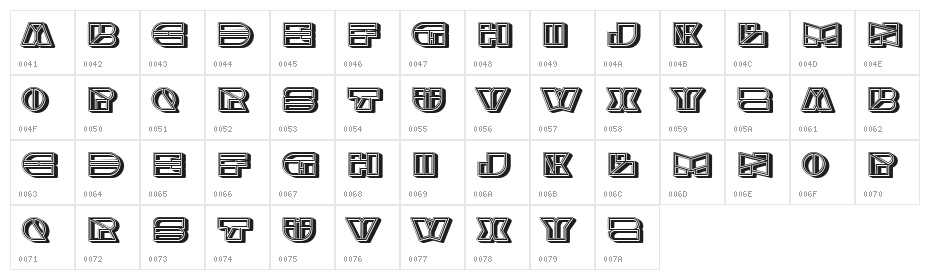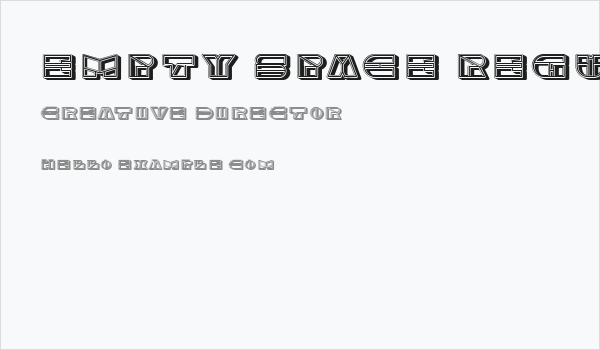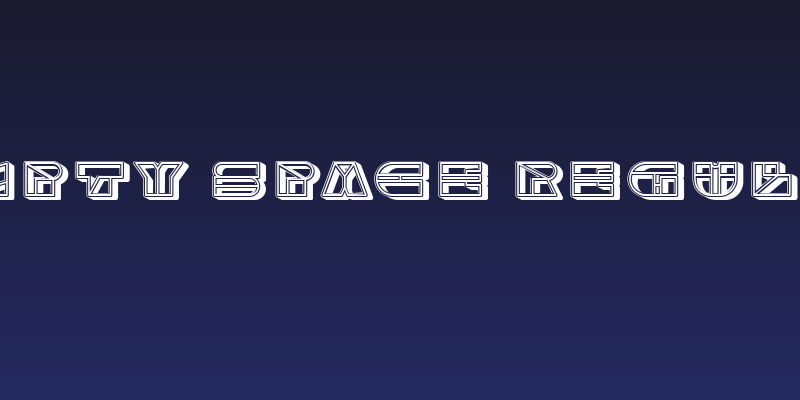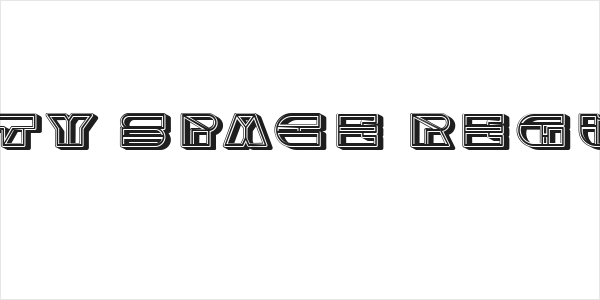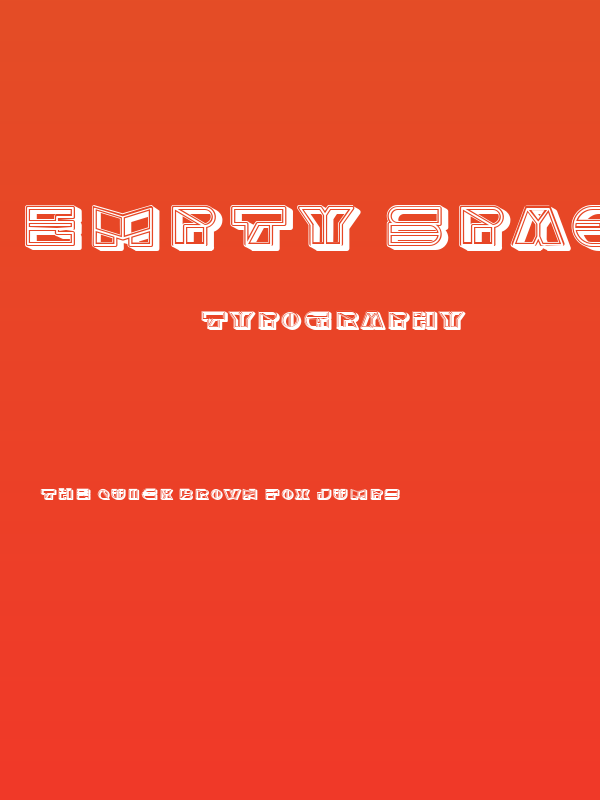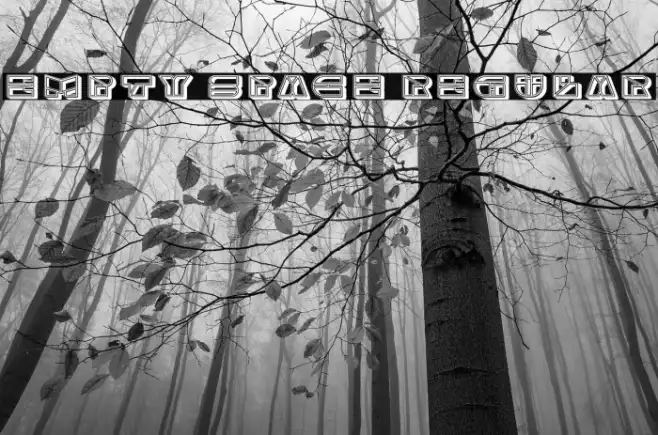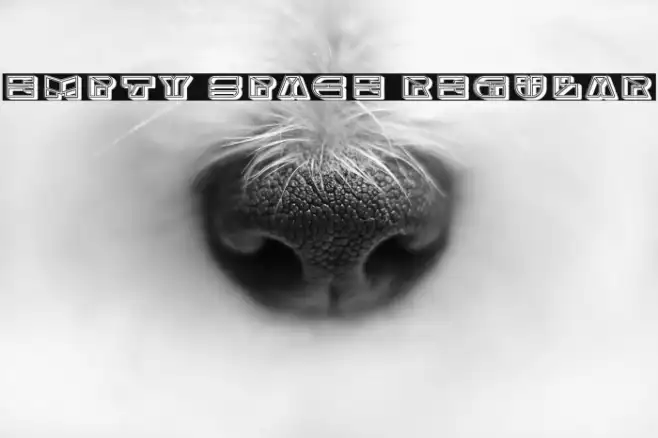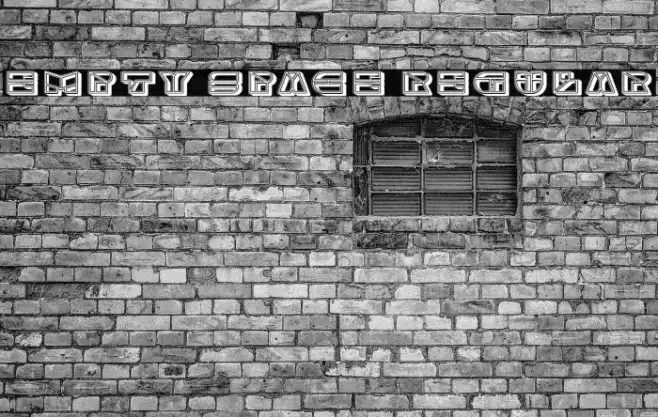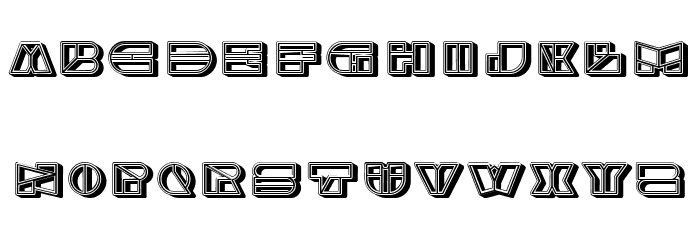
Empty Space Regular Font
Empty Space Regular Description
This font features a bold, geometric design with a futuristic and decorative flair. Each character is constructed with multiple layers, creating a three-dimensional effect that is both striking and visually engaging. The use of sharp angles and clean lines gives it a modern and edgy appearance, while the intricate detailing adds a sense of complexity and depth. The font's unique style makes it highly suitable for projects that require a standout, eye-catching typeface. Its bold presence is ideal for making a strong visual impact.
| Overall Style | Futuristic, Decorative |
| Proposed Projects | Ideal for sci-fi themed designs, posters, branding, and any project needing a futuristic and bold typeface. |